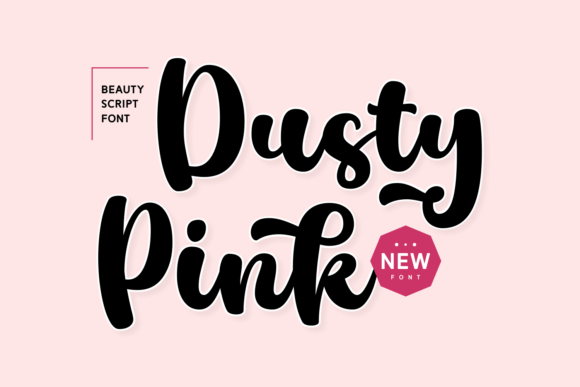
Dusty Pink Font: Elevate Your Design with a Touch of Glamour
Dusty Pink is a stunning script font that exudes confidence and style, making it perfect for designers looking to add a touch of glamour to their work. With its bold presence, thick rounded strokes, and subtle swashes, this modern handwritten font is ideal for a wide range of design applications, from beauty branding and product packaging to Instagram graphics and sassy quotes.
The Characteristics of Dusty Pink Font
Dusty Pink is a fun and fashionable script font that boasts a unique combination of characteristics, making it stand out from other fonts in its category. Some of its key features include:
- Bold Presence: Dusty Pink has a strong and confident presence that makes it perfect for headlines, titles, and logos.
- Thick Rounded Strokes: The font’s thick rounded strokes give it a soft and approachable feel, making it suitable for a wide range of design applications.
- Subtle Swashes: The subtle swashes in Dusty Pink add a touch of elegance and sophistication, making it perfect for high-end branding and luxury designs.
- Modern Handwritten Feel: The font’s modern handwritten feel makes it perfect for designs that require a personal and human touch.
Design Applications for Dusty Pink Font
Dusty Pink is a versatile font that can be used in a wide range of design applications, including:
- Beauty Branding: Dusty Pink is perfect for beauty branding, including logos, packaging, and advertising materials.
- Product Packaging: The font’s bold presence and modern handwritten feel make it ideal for product packaging, including labels, tags, and boxes.
- Instagram Graphics: Dusty Pink is perfect for creating eye-catching Instagram graphics, including quotes, promotions, and product showcases.
- Sassy Quotes: The font’s confident and playful personality makes it perfect for sassy quotes and social media posts.
- Logos and Lifestyle Designs: Dusty Pink can be used to create stunning logos and lifestyle designs, including business cards, brochures, and website headers.
Why Choose Dusty Pink Font?
There are many reasons why designers choose Dusty Pink font for their projects, including:
- Unique Style: Dusty Pink has a unique style that sets it apart from other fonts in its category.
- Confidence and Glamour: The font exudes confidence and glamour, making it perfect for designers who want to create bold and eye-catching designs.
- Versatility: Dusty Pink is a versatile font that can be used in a wide range of design applications.
- Easy to Read: The font is easy to read, even at small sizes, making it perfect for body text and captions.
Tips for Using Dusty Pink Font
Here are some tips for using Dusty Pink font in your designs:
- Use it as a Headline Font: Dusty Pink is perfect for headlines and titles, so use it to create bold and eye-catching headings.
- Pair it with a Simple Font: Pair Dusty Pink with a simple font, such as Arial or Helvetica, to create a striking contrast.
- Experiment with Colors: Dusty Pink looks great in a range of colors, so experiment with different colors to find the one that works best for your design.
- Use it for Branding: Dusty Pink is perfect for branding, so use it to create a consistent look and feel across all your marketing materials.
Dusty Pink font is a stunning script font that exudes confidence and glamour, making it perfect for designers who want to create bold and eye-catching designs. With its unique style, versatility, and ease of use, Dusty Pink is a great choice for a wide range of design applications, from beauty branding and product packaging to Instagram graphics and sassy quotes. Whether you’re a seasoned designer or just starting out, Dusty Pink is a font that’s sure to elevate your design and make your message pop.